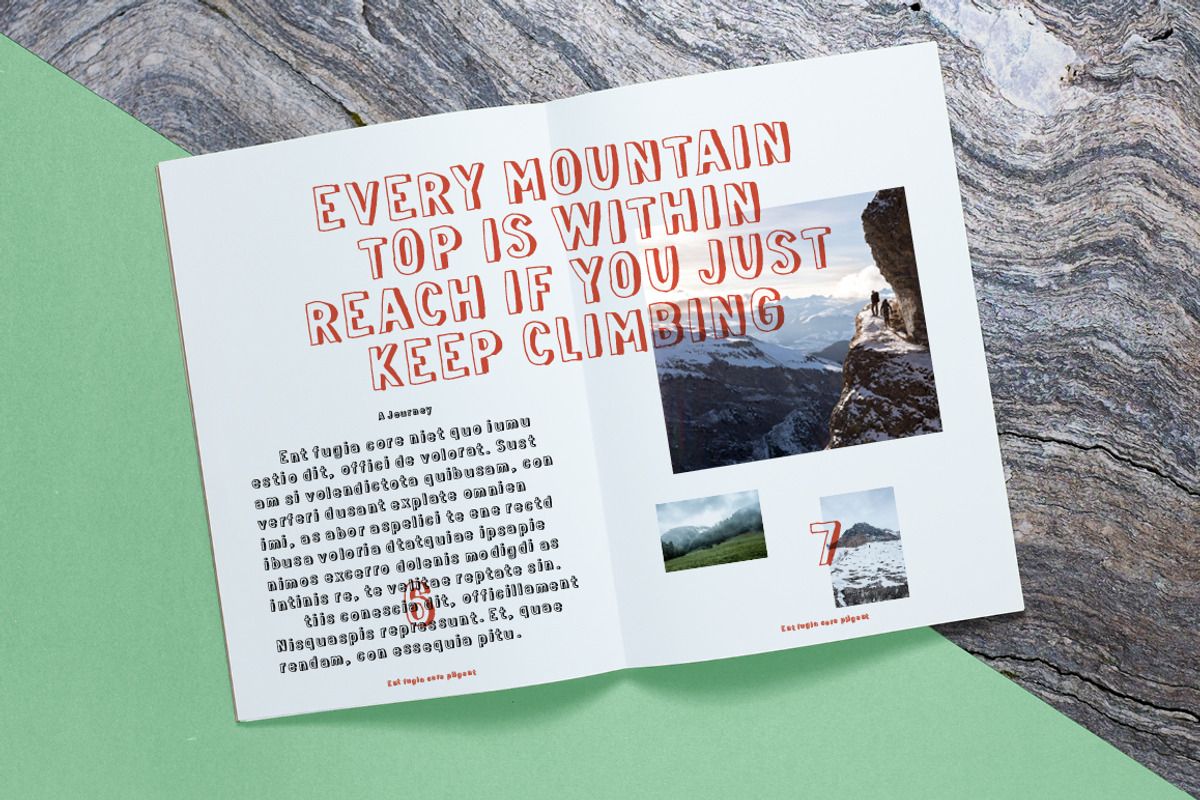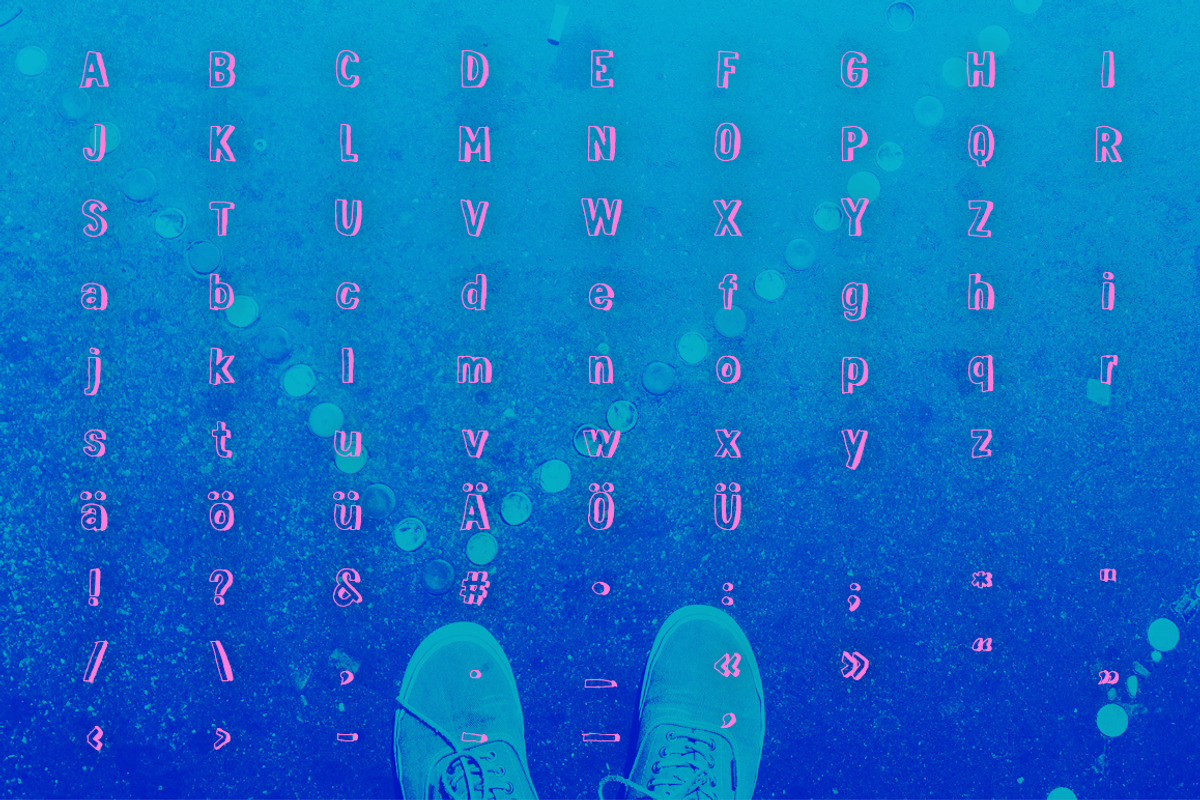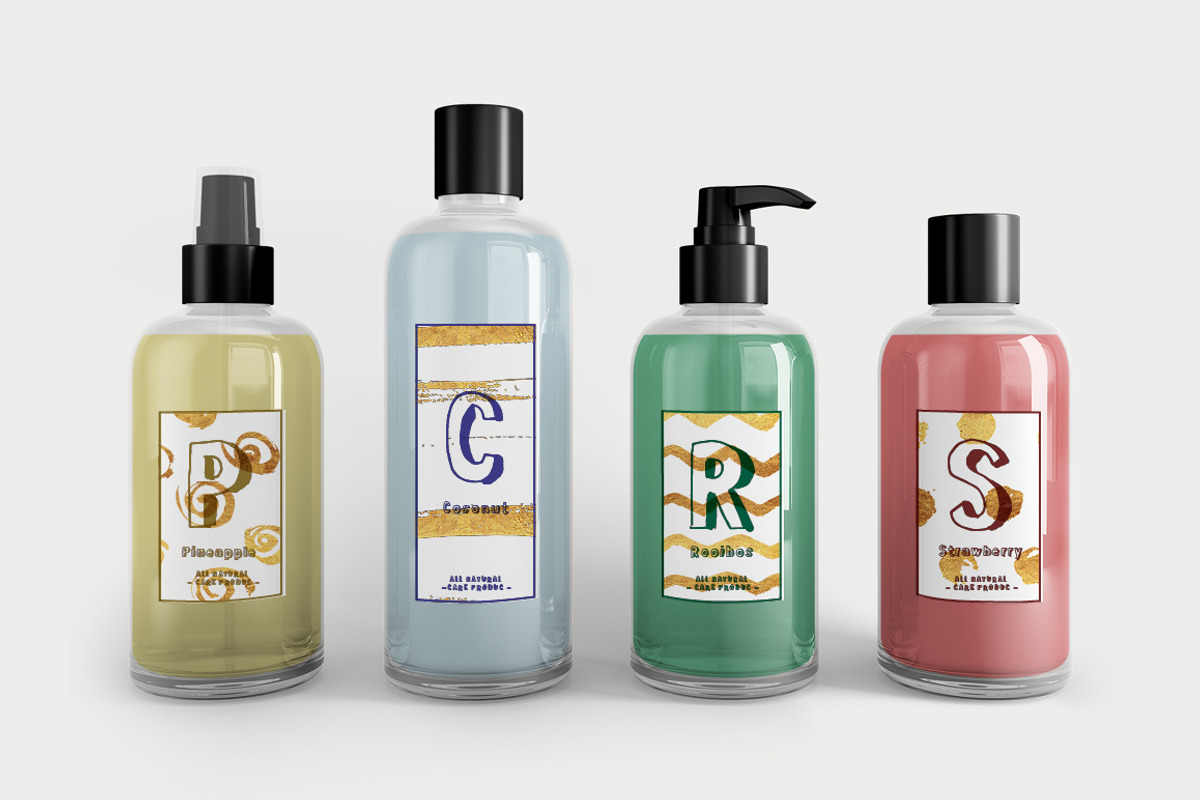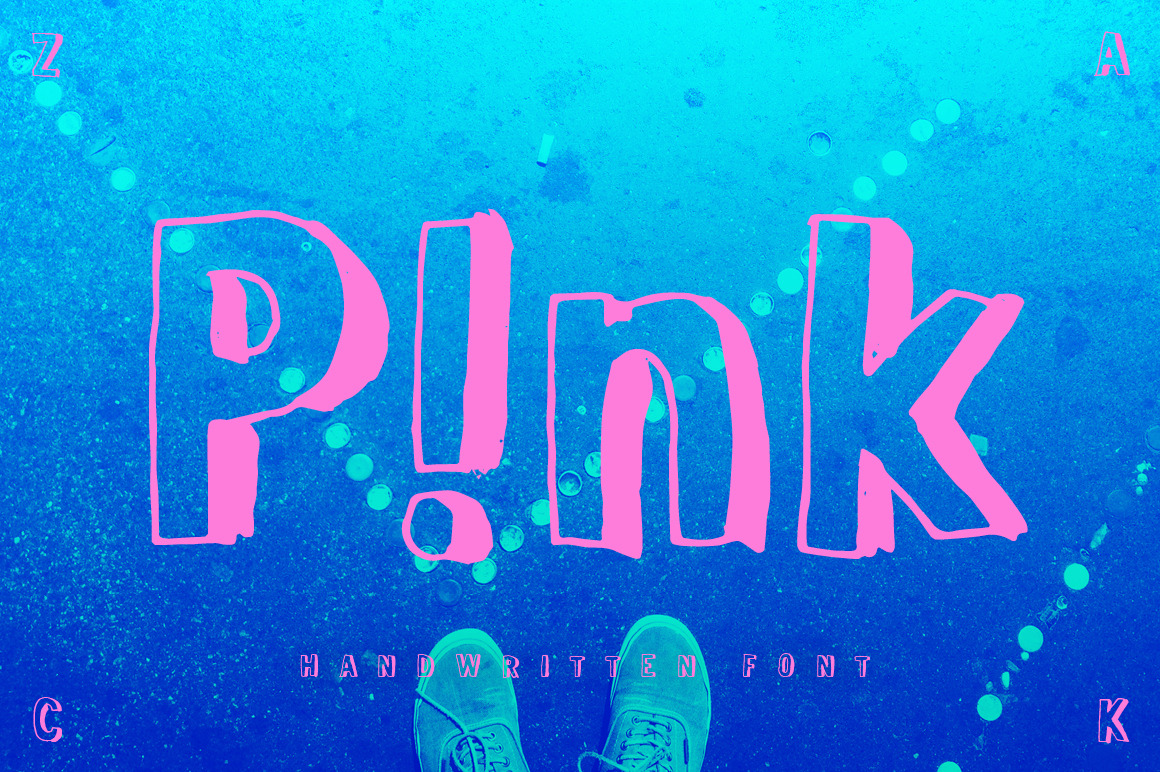
P!nk – Handwritten 3d Font
Introducing: Pink is a handwritten font in regular and light, which looks great in many context, like branding, wedding cards, retro logos, baby cards and many more. Just check out the product pictures above.
- Special Characters